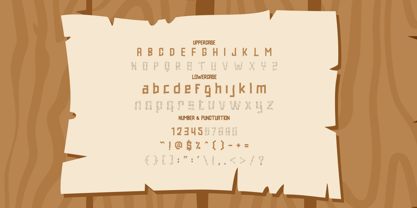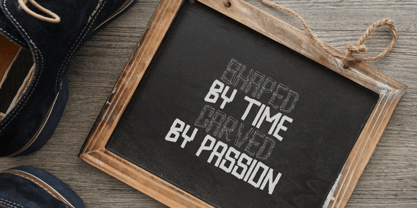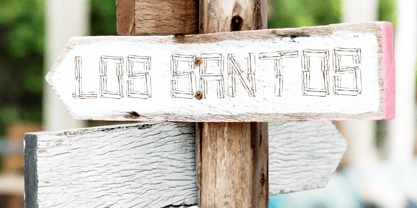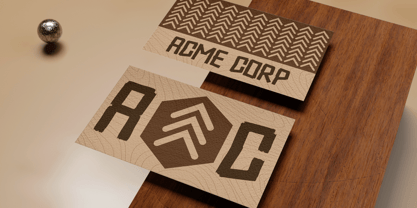
Trunk Track
by Shanaf
The Trunk Track Font Family was designed by Yesie Erma Yunita and published by Shanaf. Trunk Track contains 2 styles and family package options. More about this family
Trunk Track is a uniquely handcrafted display font inspired by the rugged texture of tree bark and timber structures. It features two stylistic variations: a solid bold cut with raw wooden edges and a detailed texture style resembling hand-carved logs. Each character is designed to resemble natural wooden planks, complete with subtle grain and contour lines, evoking a sense of wilderness and craftsmanship. The uppercase and lowercase sets are fully stylized, with consistent thickness and angular cuts that maintain a rugged yet legible appearance.
Trunk Track is ideal for branding projects that aim to embrace nature, adventure, or handcrafted aesthetics. Whether used for outdoor-themed logos, signage, product packaging, or rustic event invitations, this font makes a strong visual impact. It works seamlessly on posters, movie titles, sticker designs, and creative book covers. The wooden texture brings warmth, authenticity, and an organic flair to any project. With its dual-style versatility and textured richness, Trunk Track brings a tactile and immersive experience to modern design.